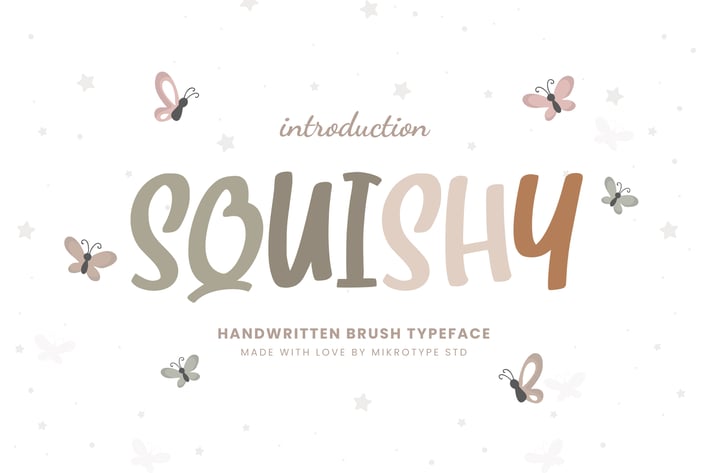
Squishy Brush Business Font
Introducing Squishy - A handwritten brush typeface made with a special brush that produces a sweet shape in this font. With an adorable shape, this font is perfect for your project that prioritizes a sense of beauty, sweetness and fun. The font is perfect for for movie title, logo, blogging, brand identity, book title, social media, branding, wedding invites, cards or simply use it in your next design project and suitable to use for many occasion.